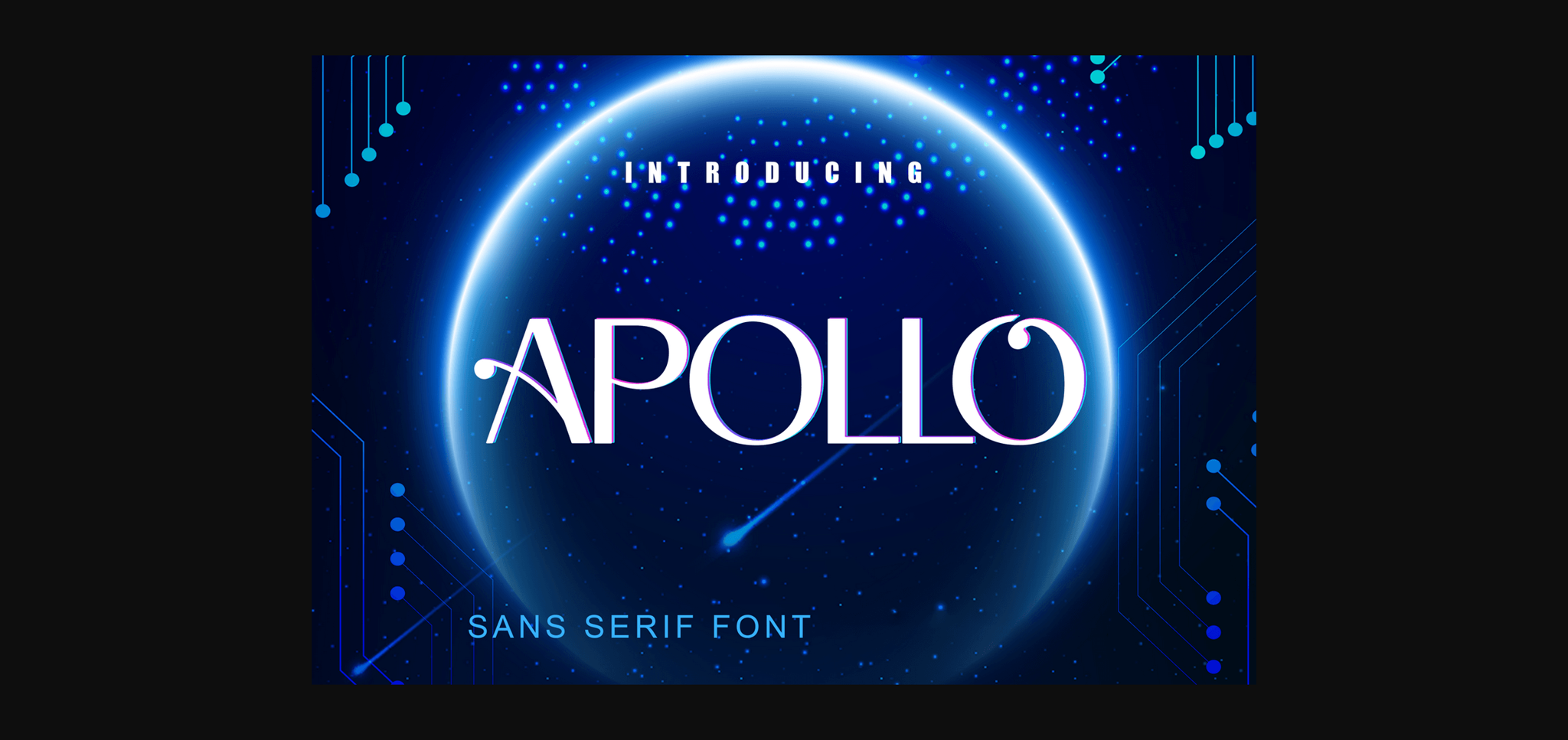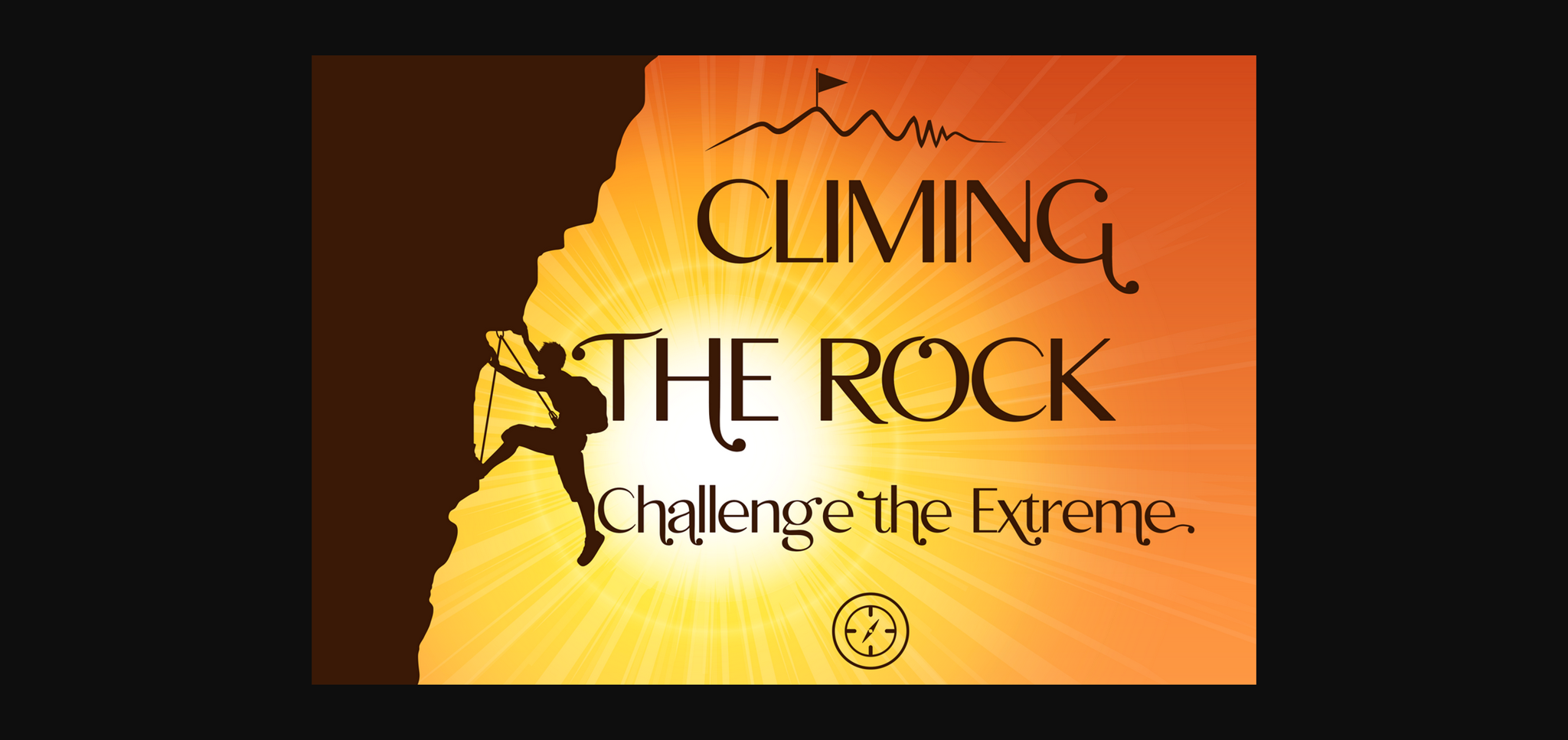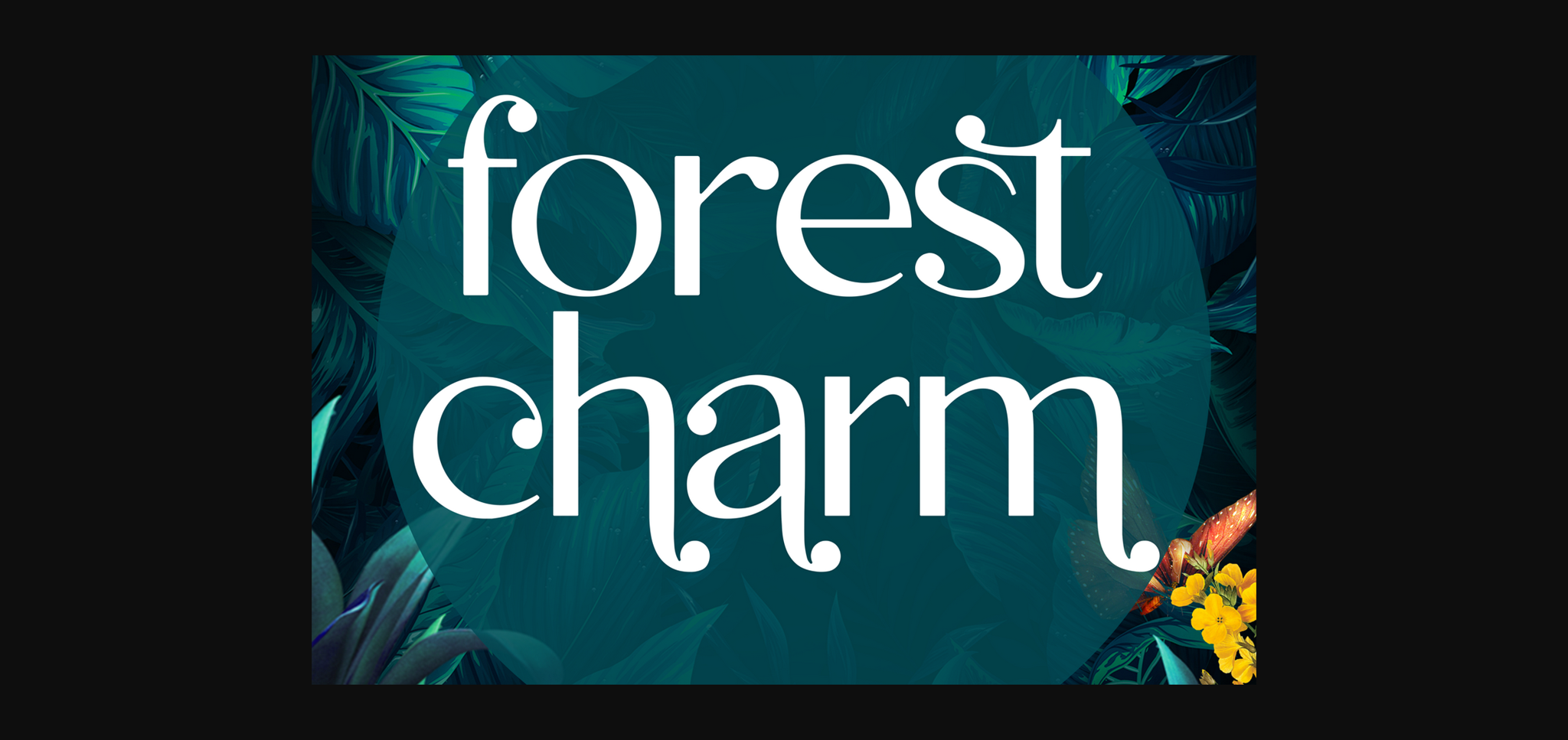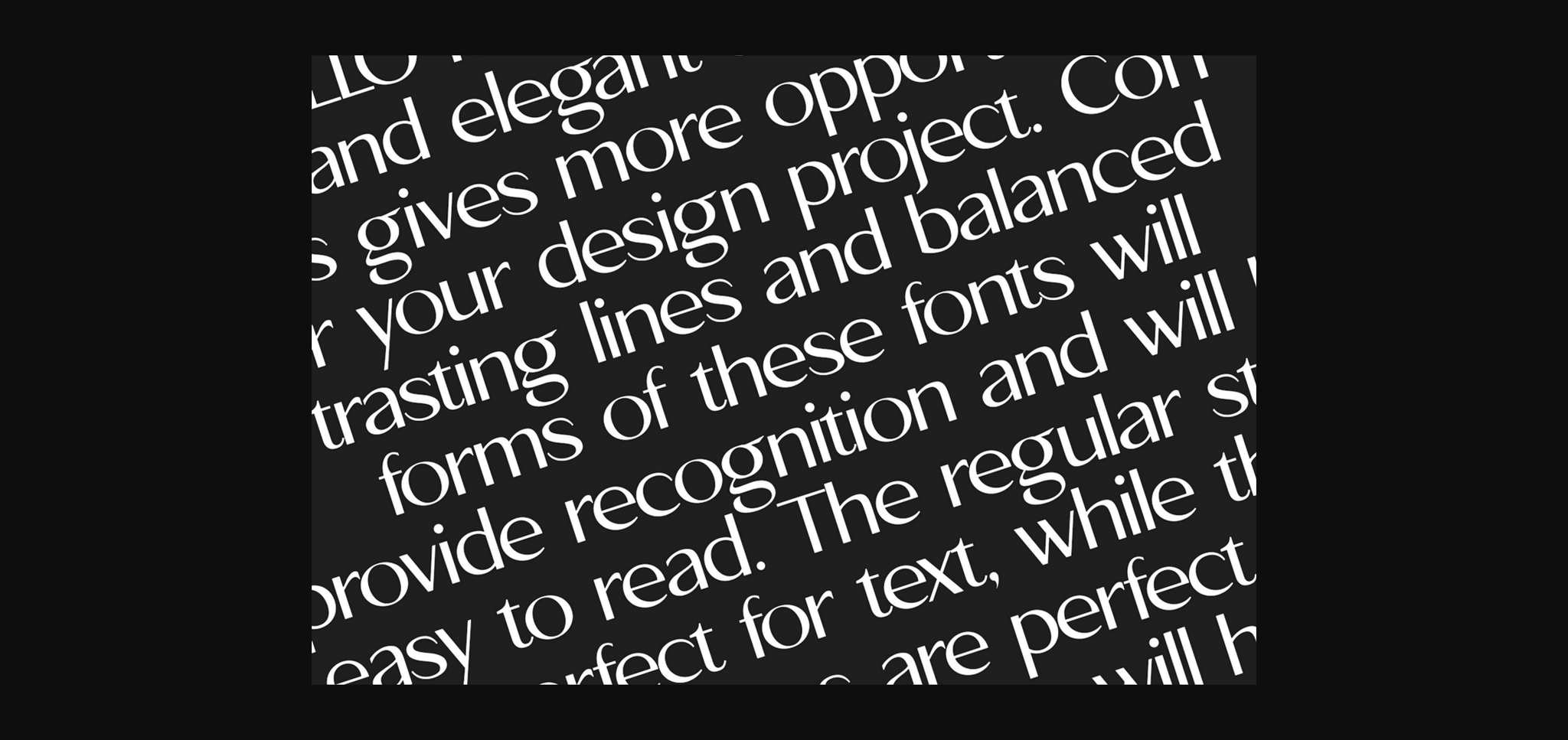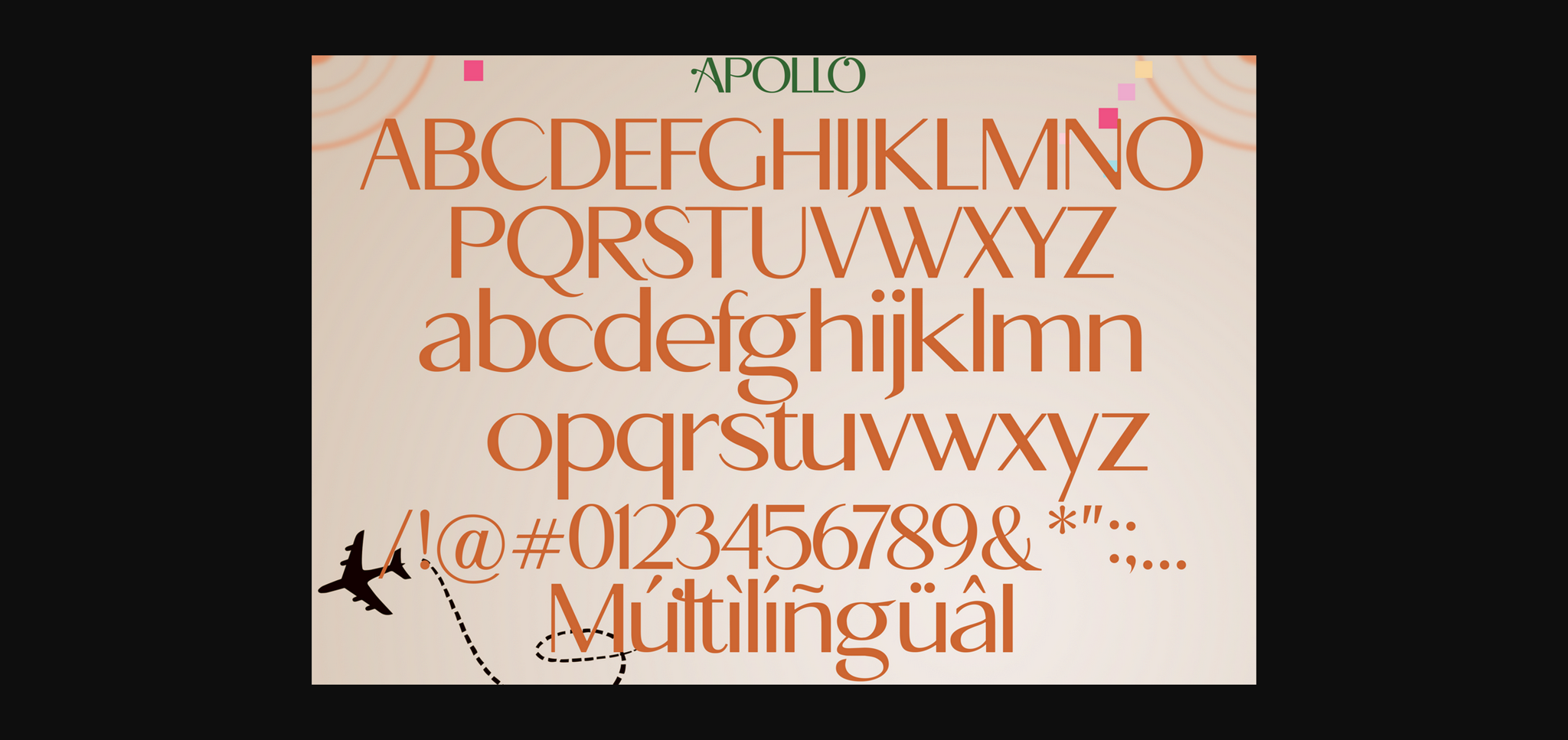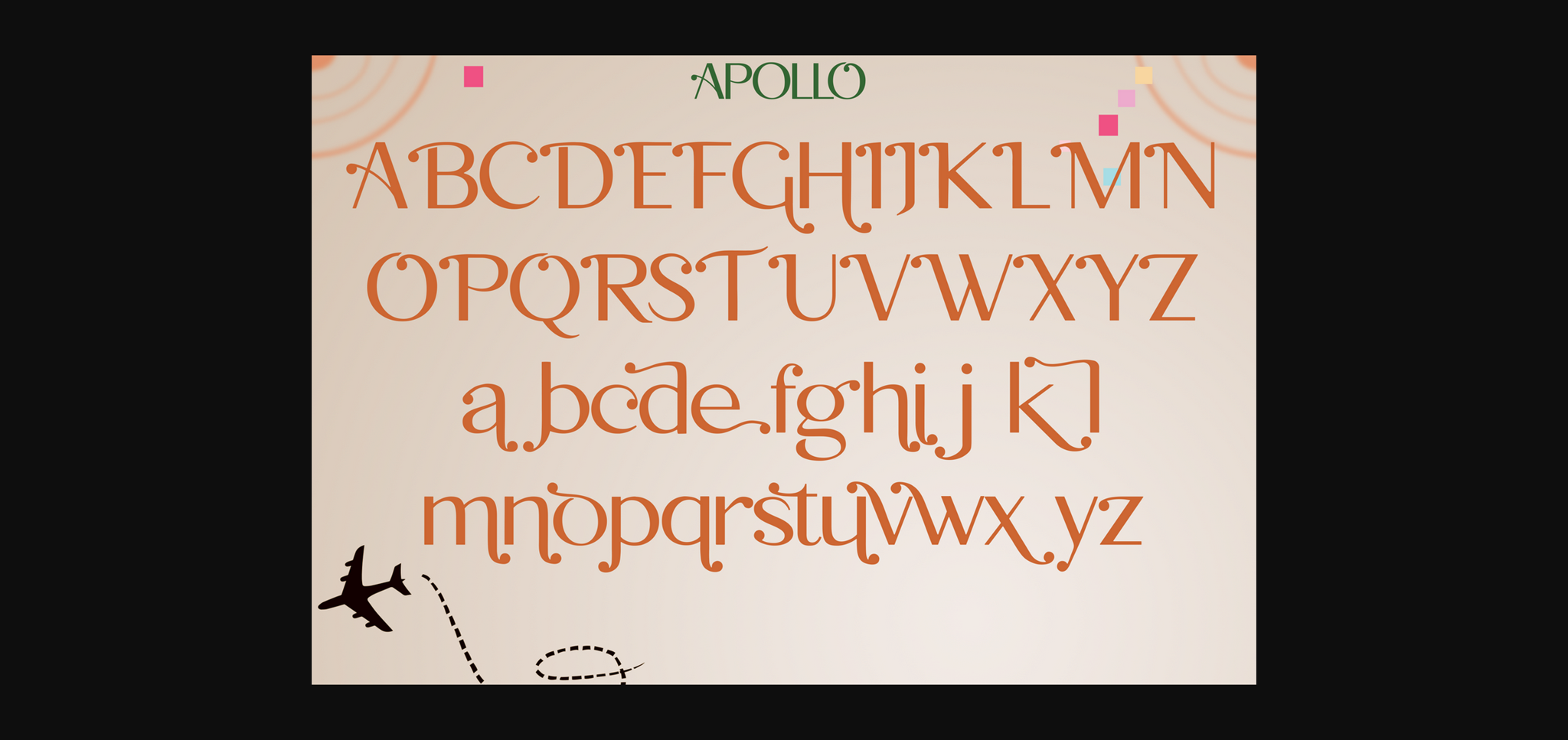
HomeSans Serif FontsApollo Font Sans Serif Fonts Apollo Font FacebookXPinterestWhatsApp 1 of 8 ... Apollo Font Poster 2... Apollo Font Poster 3... Apollo Font Poster 4... Apollo Font Poster 5... Apollo Font Poster 6... Apollo Font Poster 7... Apollo Font Poster 8... About Apollo Font Apollo is a minimal and neat sans serif font. It can easily be matched to an incredibly large set of projects, so add it to your creative ideas and notice how it makes them stand out! DOWNLOAD NOW People also explored A Sweet Ring Monogram Font Classy Bold Font Night Marie Font Diary Adora Font Sew Font Compania Font Hello Melon Duo Font Monthana Chist Font Paniscobe Font 338 0 TagsApolloApollo Font Previous articleDelvon Bold FontNext articleDelvon Semi Bold Font LEAVE A REPLY Cancel reply Comment: Please enter your comment! Name:* Please enter your name here Email:* You have entered an incorrect email address! Please enter your email address here Website: Save my name, email, and website in this browser for the next time I comment. Personal Use Free Rionaldo Angelo Personal Use Free Read more about this font Artisan Signature Personal Use Free Read more about this font I Am Exceptional Personal Use Free Read more about this font Happy Camping Personal Use Free Read more about this font BLOG 5 Fonts That Will Dominate Design Trends in 2026 5 Fonts for 2026 That Will Dominate Design Trends Typography plays a critical role in visual communication, and as we look ahead to 2026, it’s... The 10 Best Handwriting Fonts to Add Personality to Your Designs Fonts That Capture the Spirit of New York City Using Fonts in Digital Marketing: Tips to Strengthen Your Brand Identity